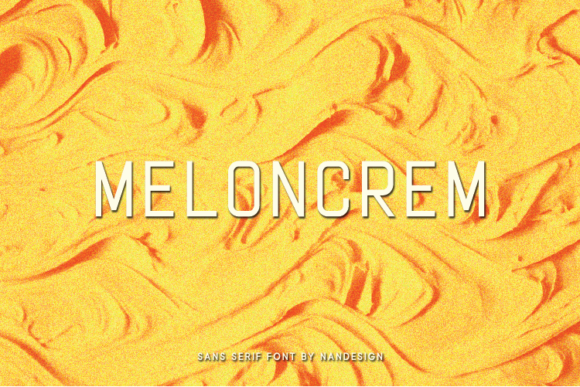
Meloncrem Font
Presenting **Meloncrem Sans Serif Font**, the gateway to modern web design. Immerse yourself in the world of sleek aesthetics and unparalleled functionality. With Meloncrem, your website will radiate elegance and sophistication, leaving a lasting impression on every visitor.
**Unleash the Power of Simplicity:**
In a world of visual clutter, Meloncrem's simplicity shines through, allowing your content to take center stage. Its clean lines and understated beauty create a seamless reading experience, enhancing user engagement and driving conversions. Simplicity is not just a design choice; it's a strategic move to elevate your website's user experience.
**A Font that Breathes Life into Your Creations:**
Meloncrem is more than just a collection of letters; it's a conduit for your creativity. Whether designing captivating logos, crafting stunning invitations, or creating eye-catching headings, Meloncrem effortlessly elevates your designs. It's the perfect font for modern websites, where every element tells a story.
**Designed with Precision, Crafted with Care:**
Nan Design, the visionary behind Meloncrem, meticulously crafted each letterform to ensure perfect balance and harmony. The result is a font that exudes professionalism and attention to detail. Meloncrem is not just a font; it's an expression of artistic excellence, ready to transform your website into a masterpiece.
**Experience the Meloncrem Difference:**
Join the ranks of design enthusiasts who have embraced the power of Meloncrem. Discover a new level of sophistication and elegance that will redefine your website's aesthetic. It's time to leave behind the ordinary and embrace the extraordinary.